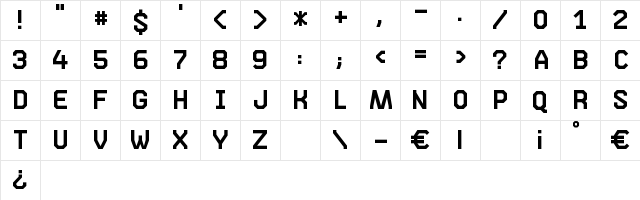
Phase 05 Regular
Design Context for Phase 05
Phase 05 is a composed and adaptable typeface that performs quietly and consistently across a wide range of design contexts.